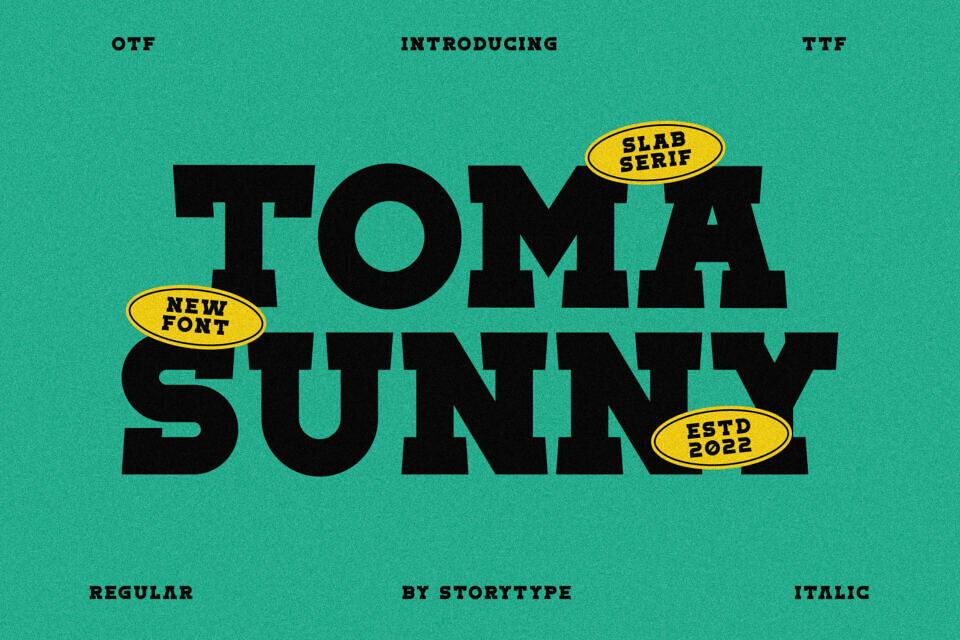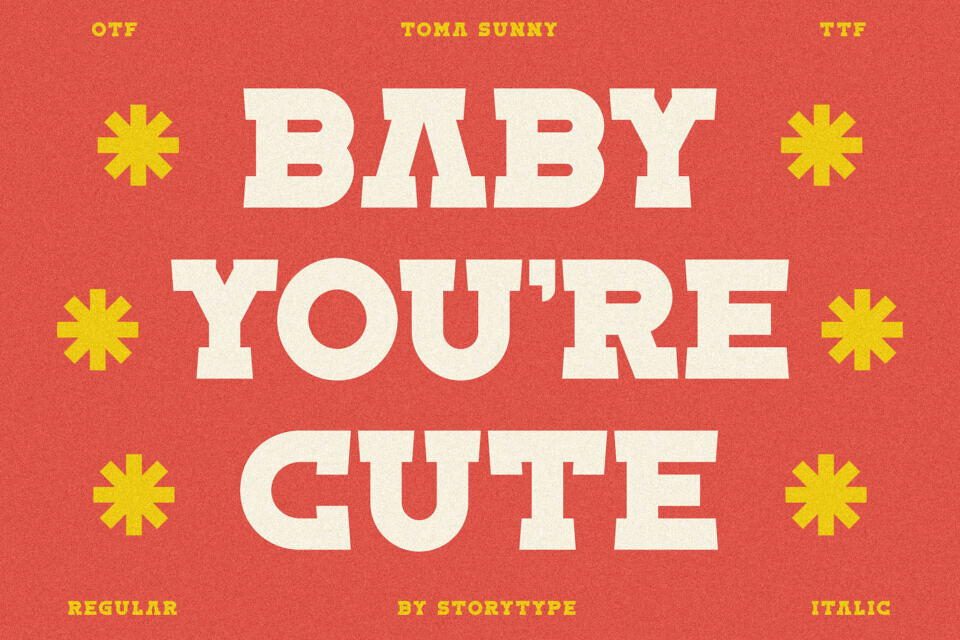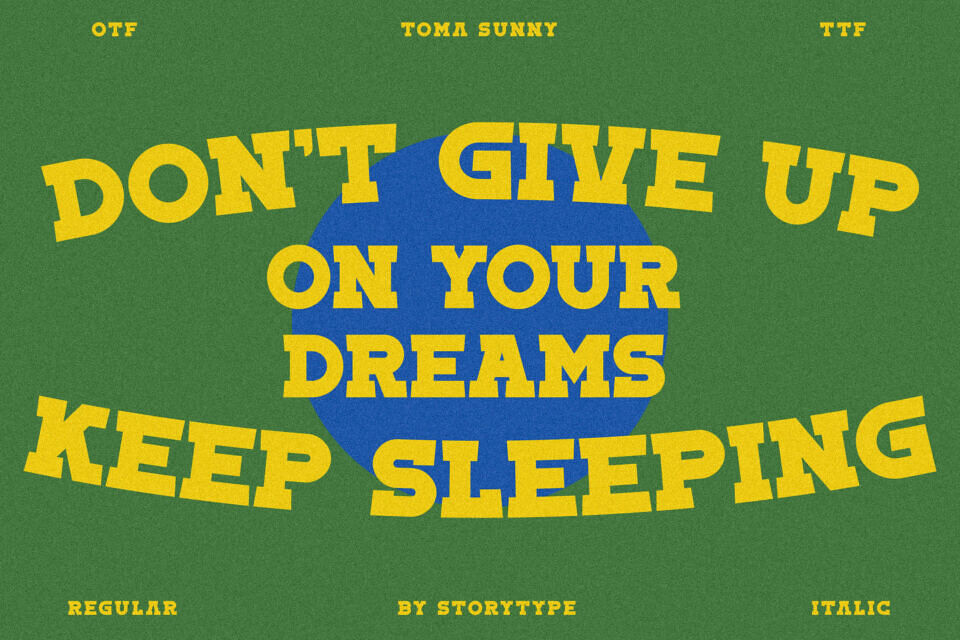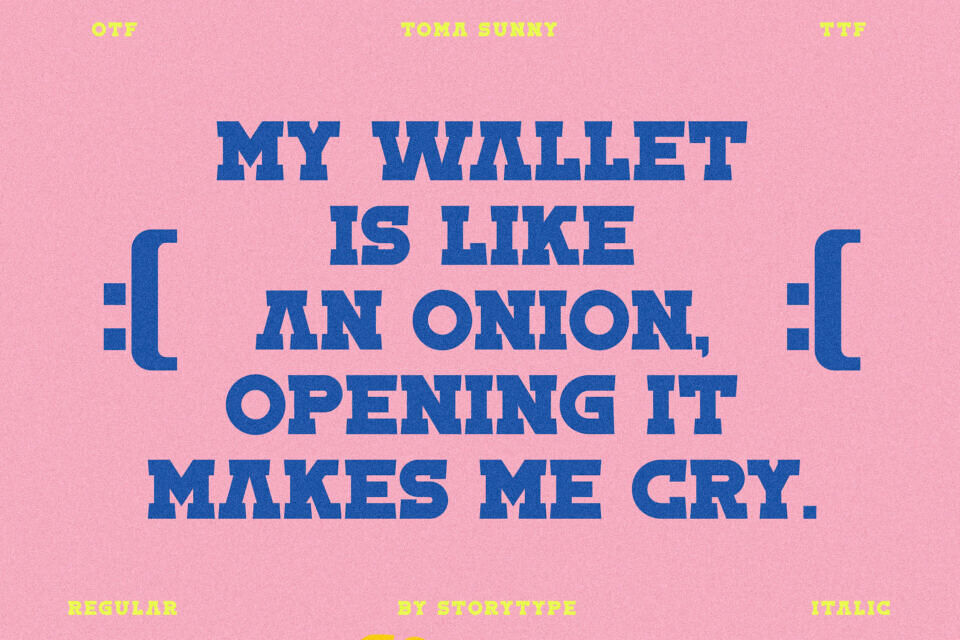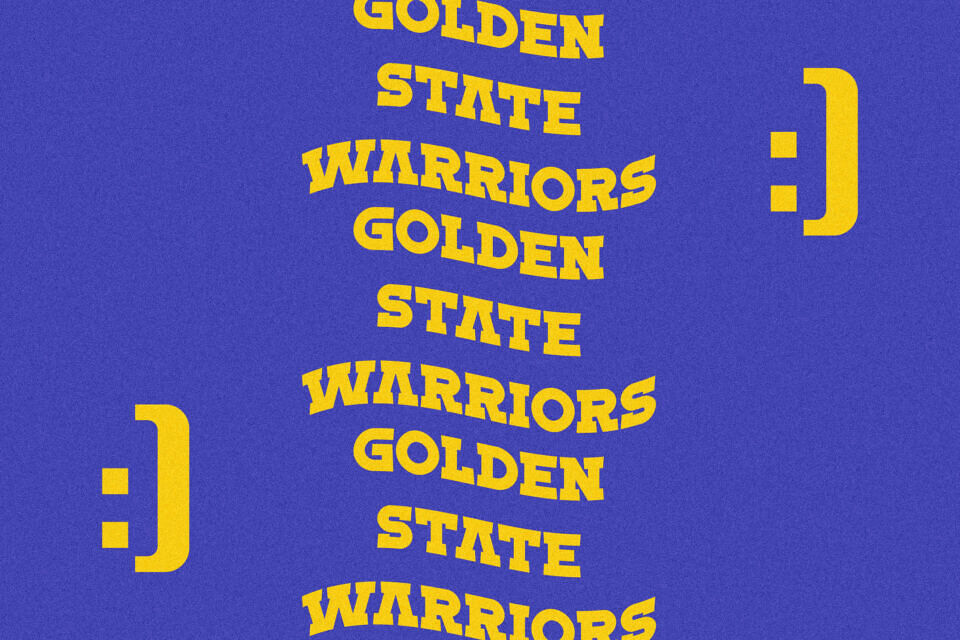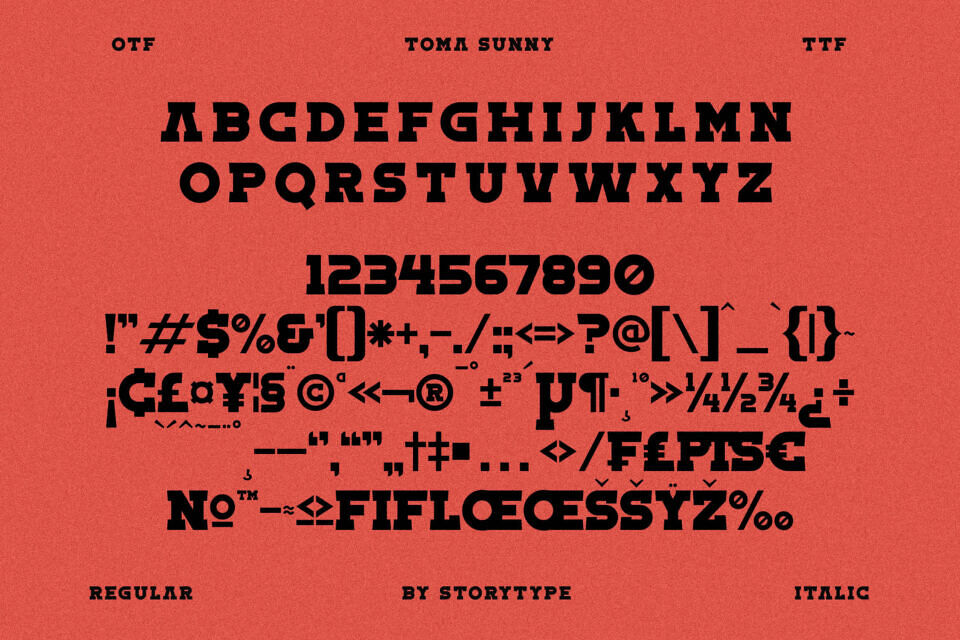
Toma Sunny Font
Toma Sunny is a modern slab serif typeface that blends classic elegance with a bold, contemporary feel. Its clean, geometric letterforms and sturdy serifs create a strong visual presence while maintaining readability.
Ideal for logos, fashion branding, magazine titles, and quotes, it delivers a refined yet approachable style that works well in both display and editorial designs.